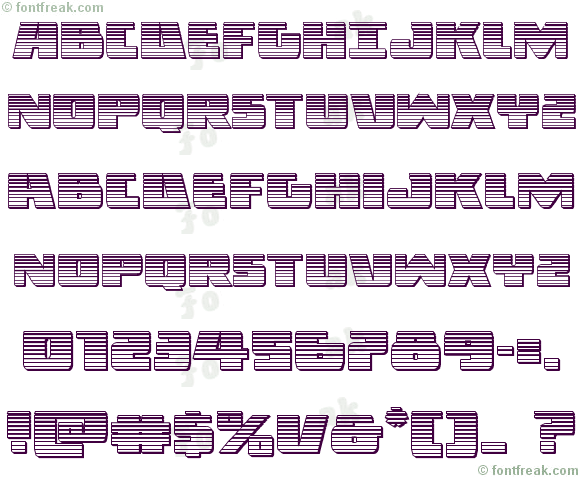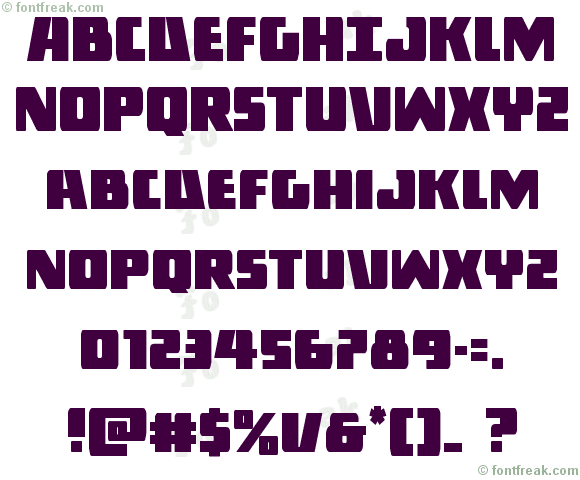
Dark Alliance Academy
About Dark Alliance Academy
Dark Alliance Academy is a striking display font designed by Daniel Zadorozny, released in 2013 under a freeware license. This font falls into the decorative category, characterized by its bold, condensed letterforms that evoke a sense of strength and authority. The design features a unique combination of outline and gradient effects, creating a dynamic visual appeal. The stroke weight is consistent, providing a solid foundation while the halftone and shadow effects add depth and intrigue to the overall aesthetic.
The font is versatile and can be effectively utilized in various contexts. It is ideal for creating attention-grabbing movie posters that require a dramatic flair, as well as for video game branding or promotional materials that call for a modern, edgy look. Additionally, the Dark Alliance Academy font can enhance the visual identity of tech startups or digital agencies, where a contemporary appearance is essential. It's also suitable for merchandise design, such as T-shirts or stickers, targeting a younger audience interested in gaming and pop culture.
Graphic designers, content creators, and small business owners will find this font especially appealing. Its bold presence can elevate any project, making it an essential tool for professionals looking to create impactful designs.